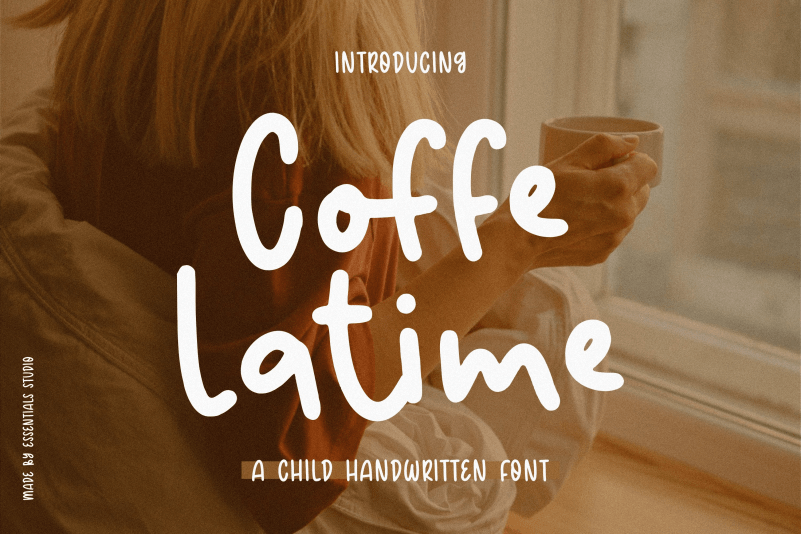
Coffe Latime Handwritten Font Is a A Handwriting Font. Coffee Latime is perfect for product packaging, branding project, megazine, social media, wedding, or just used to express words above the background.